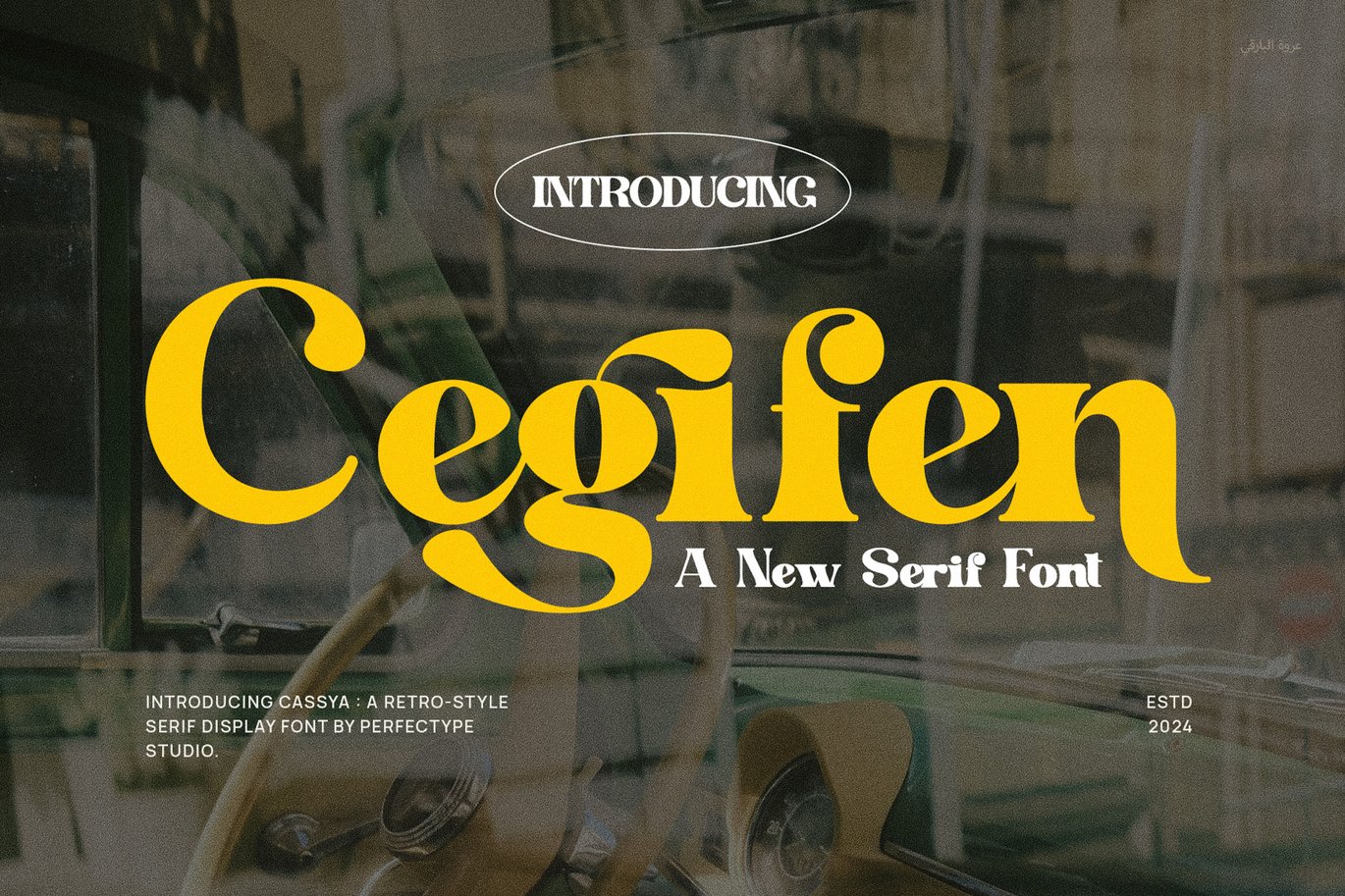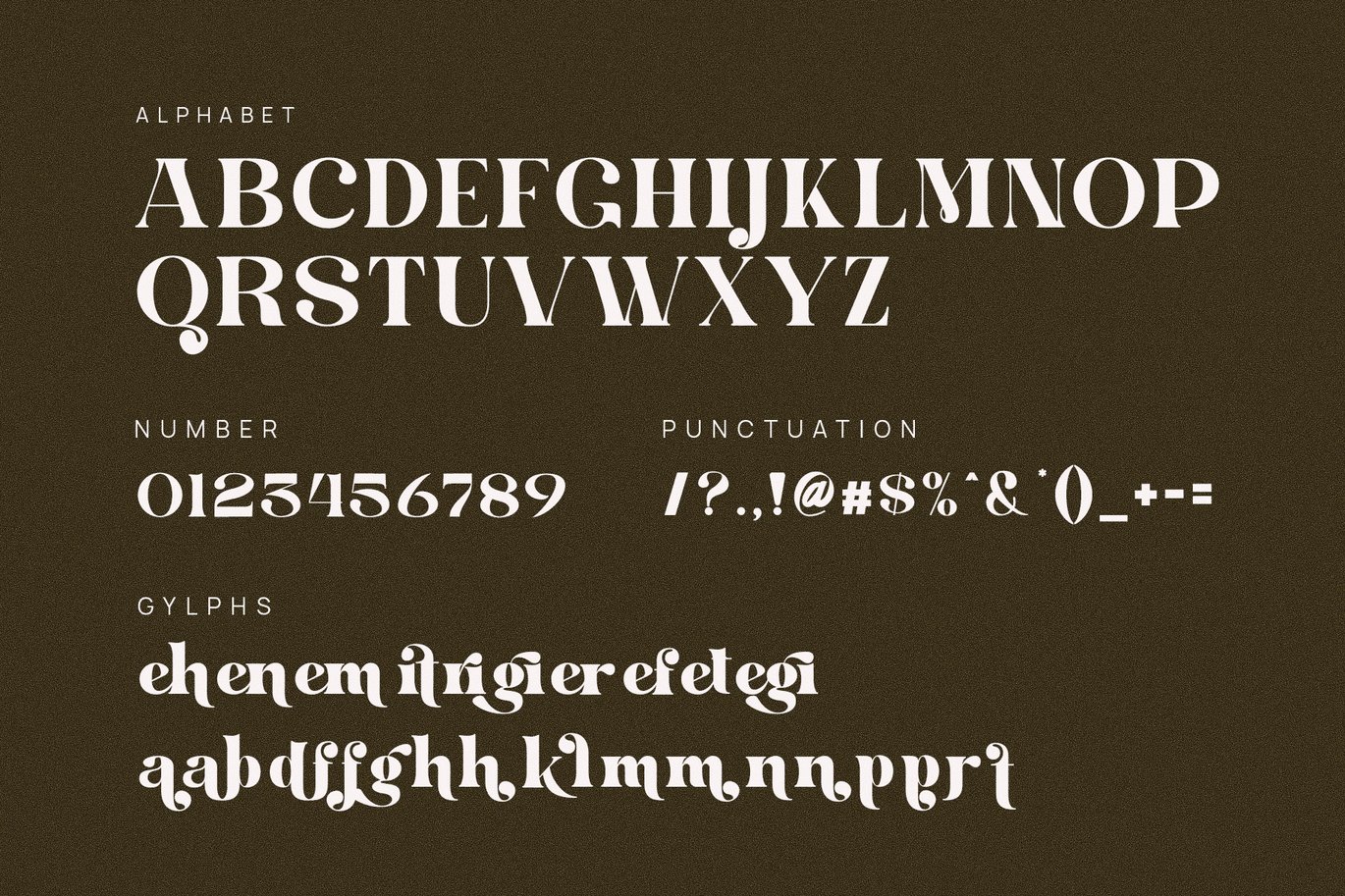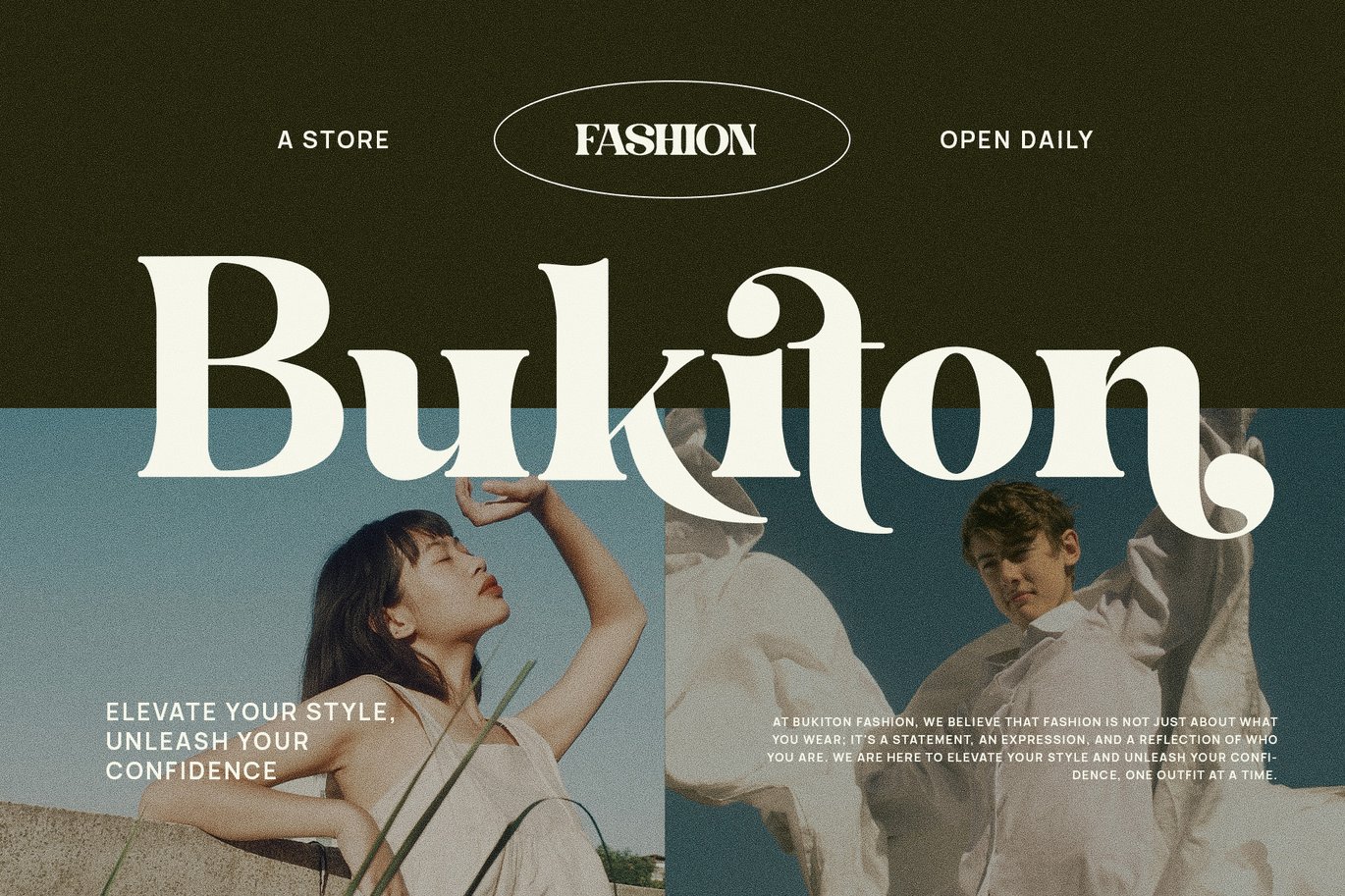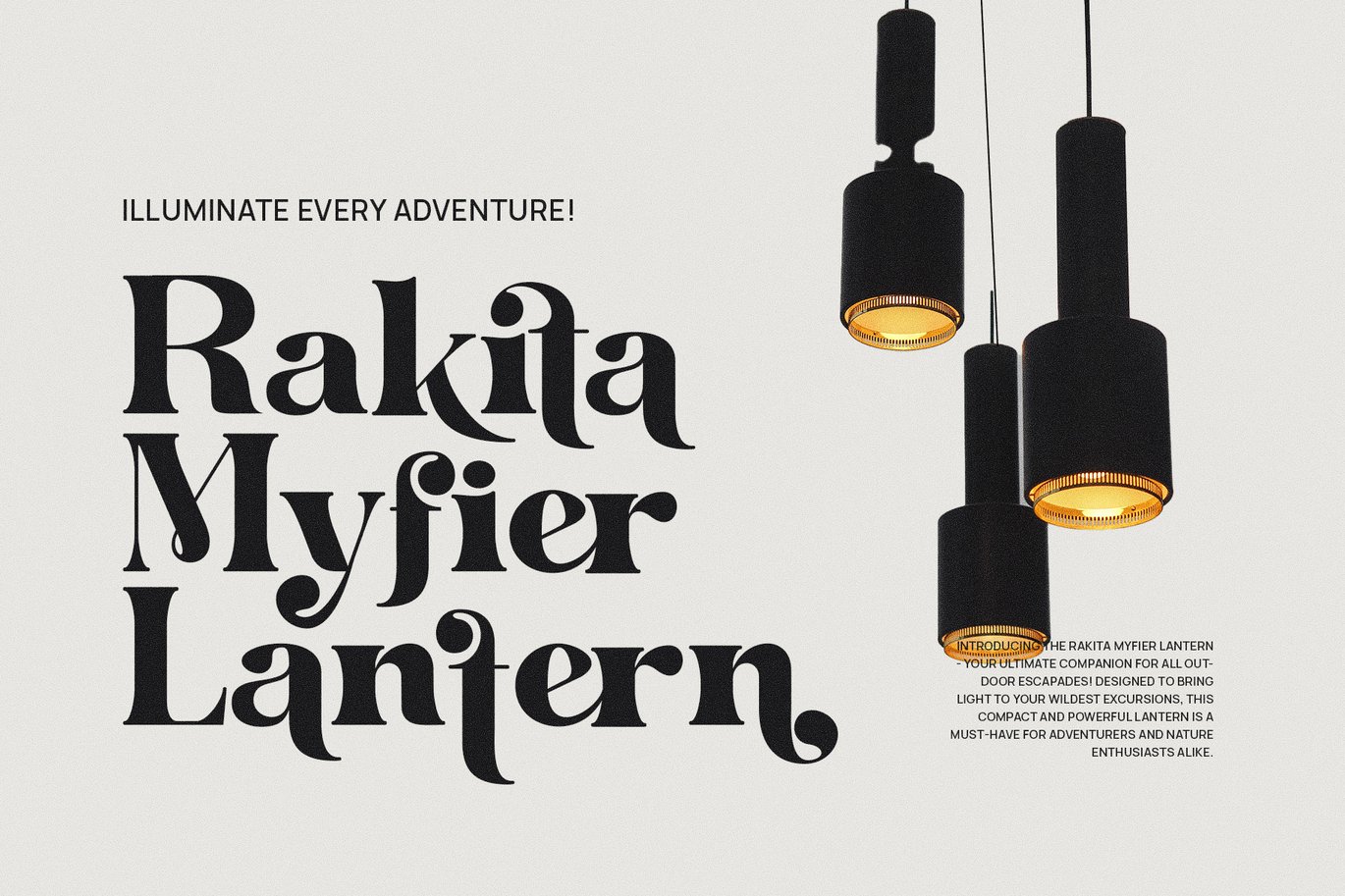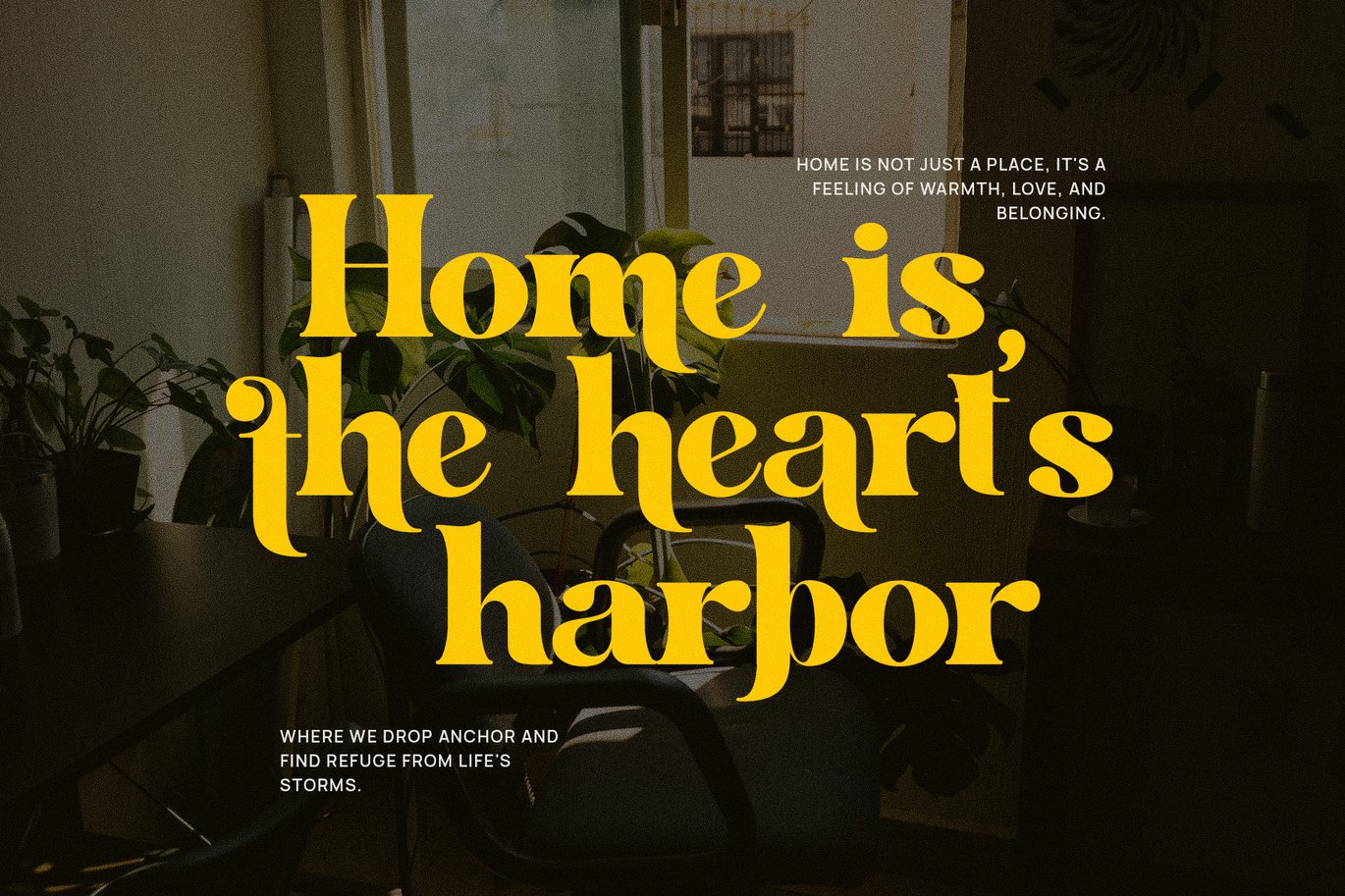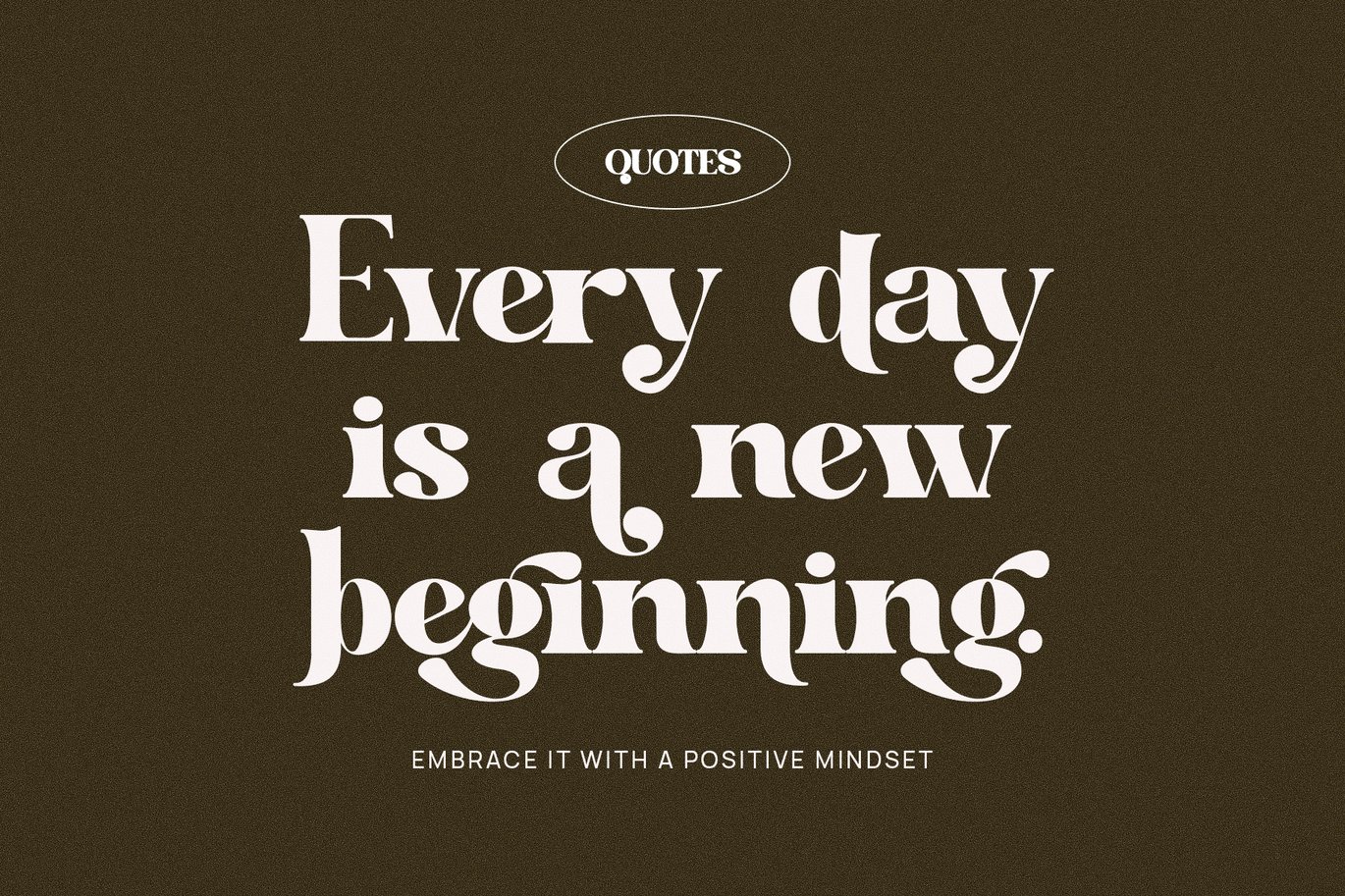
Cegifen Elegant Ligature Serif Font Typeface
Cegifen Elegant Ligature Serif is a refined and stylish typeface that seamlessly merges vintage charm with contemporary sophistication. Designed to exude luxury and timeless beauty, this font is perfect for high-end branding, editorial designs, and creative projects that demand a touch of elegance.
Characterized by its graceful ligatures and meticulously crafted alternates, Cegifen offers a unique visual identity that enhances any composition. Its smooth curves and balanced letterforms create a sophisticated yet approachable aesthetic, making it ideal for logos, fashion magazines, boutique branding, luxury packaging, and premium websites. The versatility of this serif font allows it to transition effortlessly between classic and modern design applications.
Each letter in Cegifen carries a sense of artistry, with stylish strokes and distinctive details that add depth and personality. Whether used for refined headlines, elegant invitations, or editorial layouts, this font ensures a polished and professional look. The well-designed ligatures enhance readability while giving text a flowing, handcrafted feel.
Perfect for designers who appreciate craftsmanship and detail, Cegifen Elegant Ligature Serif embodies sophistication, making it a must-have for projects that require a touch of grace and exclusivity. Elevate your designs with the charm of vintage typography, modern refinement, and artistic precision—all encapsulated in this beautifully designed serif font.